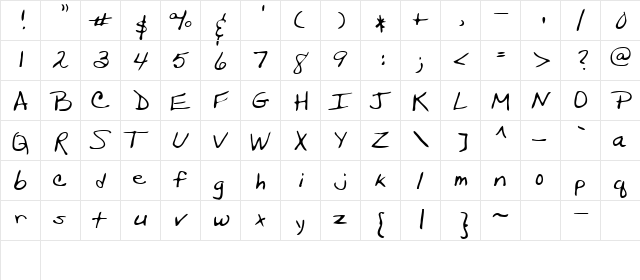
Susanne Regular
Design Context for Susanne Typeface
Susanne takes a measured approach to typography — its balanced proportions and neutral character make it a reliable workhorse for both digital and print work.